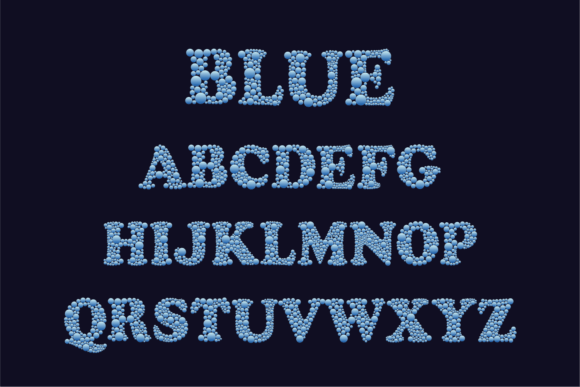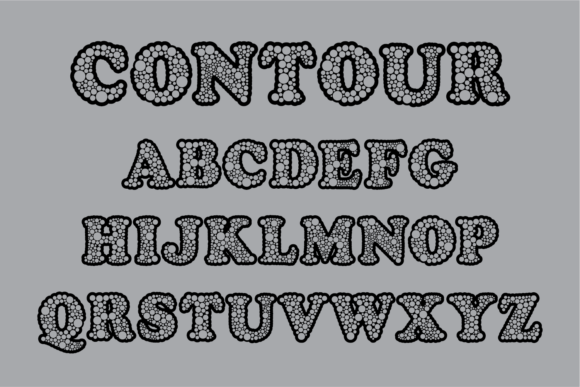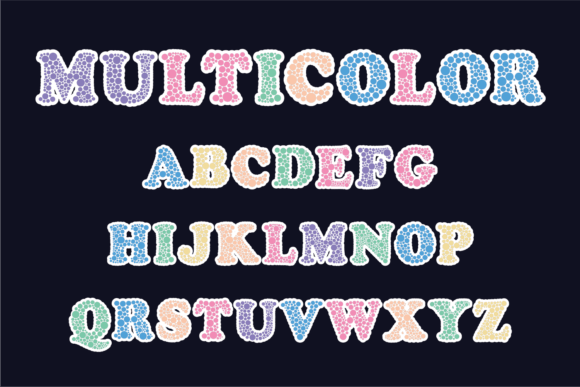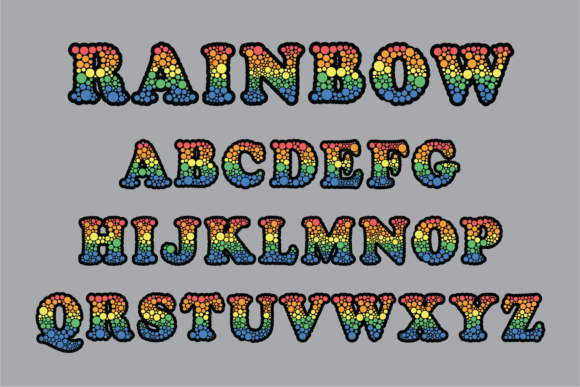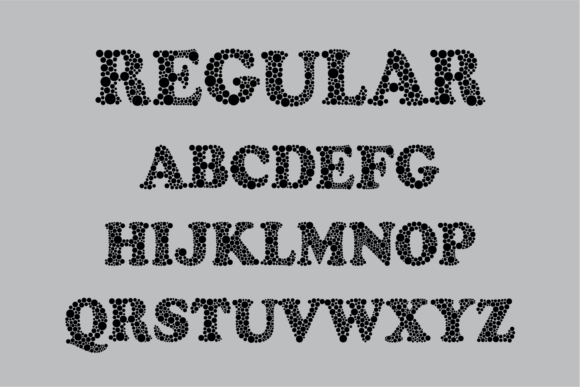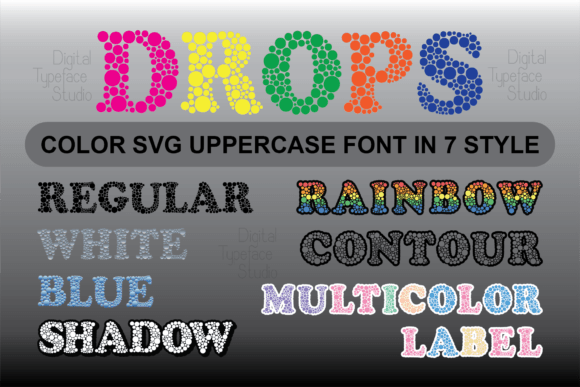
Introducing Drops Font: A Delightful Burst of Color and Creativity
Are you looking for a font that adds a touch of whimsy and playfulness to your designs? Look no further than Drops Font! This delightful font is crafted as a collection of tiny, colorful drops, making it perfect for projects that need a splash of cheerfulness. In this article, we’ll dive into the features and benefits of Drops Font, and explore how you can use it to elevate your designs.
A Whimsical and Artistic Touch
Drops Font is a unique and eye-catching font that adds a touch of artistry to any project. Each letter is carefully crafted as a collection of tiny, colorful drops, creating a whimsical and playful vibe. Whether you’re working on invitations, branding, or any project that needs a dash of personality, Drops Font is the perfect choice.
Versatility and Compatibility
One of the best things about Drops Font is its versatility. The black version of this font is compatible with Cricut Design Space and other cutting machines, making it perfect for crafters and DIY enthusiasts. However, the color version of this font is only compatible with certain design programs, including PhotoShop, Illustrator, Silhouette, and Inkscape.
Drops Font is a dream come true for designers and crafters alike. Whether you’re creating custom invitations, branding materials, or DIY projects, this font is sure to add a touch of personality and whimsy. The colorful drops create a fun and playful vibe that’s perfect for:
• Custom invitations and party decor
• Branding materials, such as logos and business cards
• DIY projects, like scrapbooking and card making
• Social media graphics and digital art
• Experiment with different colors and combinations to create unique effects
• Don’t be afraid to get creative and try new things – Drops Font is all about experimentation and playfulness!
• Unique and eye-catching design featuring tiny, colorful drops
• Whimsical and playful vibe perfect for creative projects
By incorporating Drops Font into your design arsenal, you’ll be able to add a splash of cheerfulness and personality to your projects. So go ahead, get creative, and have fun with Drops Font!